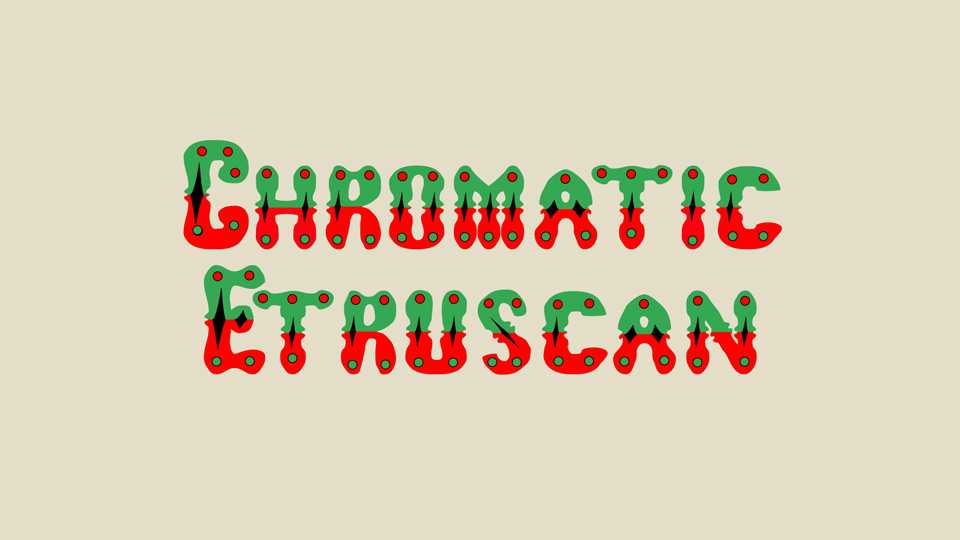
Download Chromatic Etruscan font, a display typeface loosely based on a family of wood type faces of the same name sold by William Page & Co. in the late 19th century. The original typeface was manufactured at very large sizes, for use on advertising posters and similar, and it was designed to be used in color.